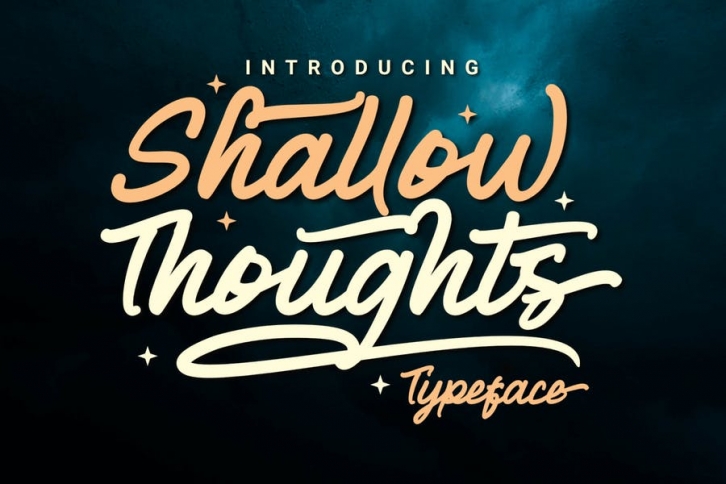
Shallow Thoughts is a modern script typeface created to enhance your designs. This font offers a simple yet stunning style with support
Shallow Thoughts very suitable for event titles, posters, web, banner, book covers, social media, and other designs.
- Standard glyphs
- Alternate
- Multilingual Accent